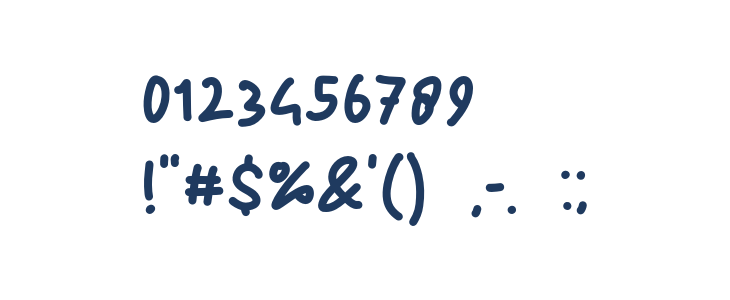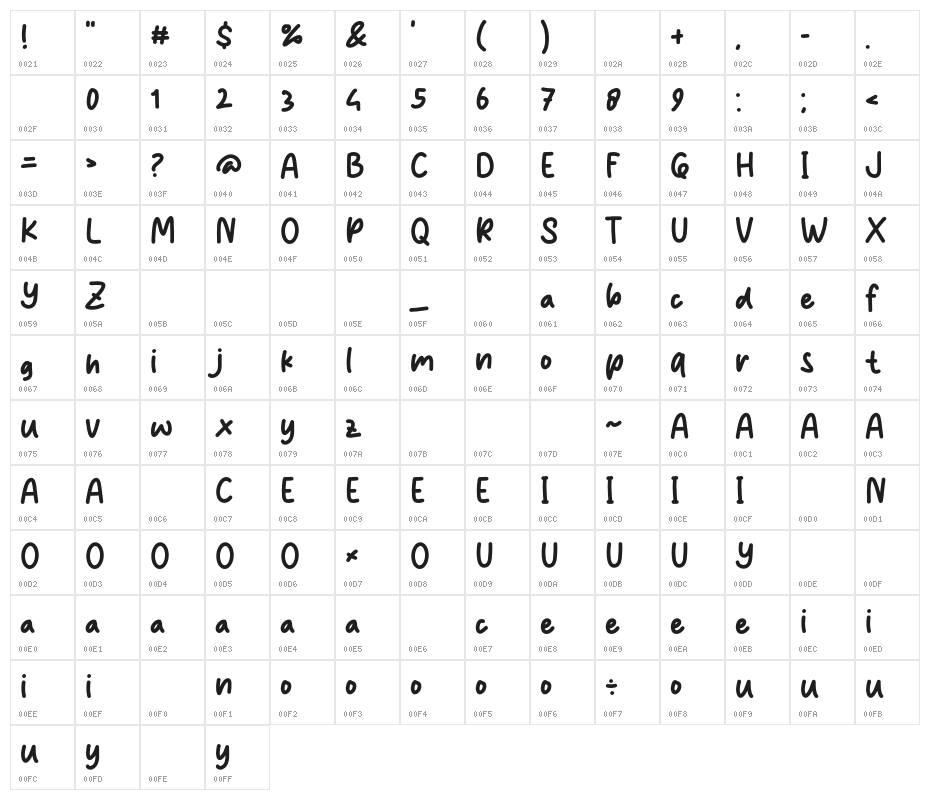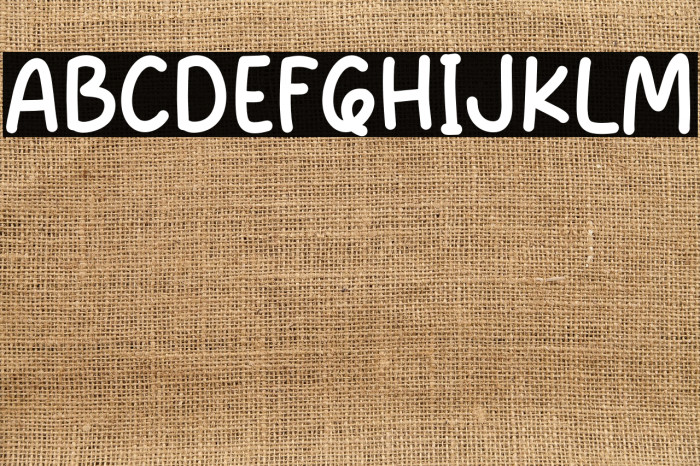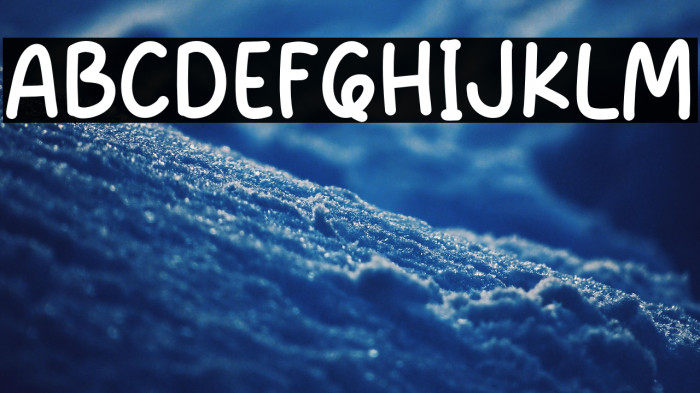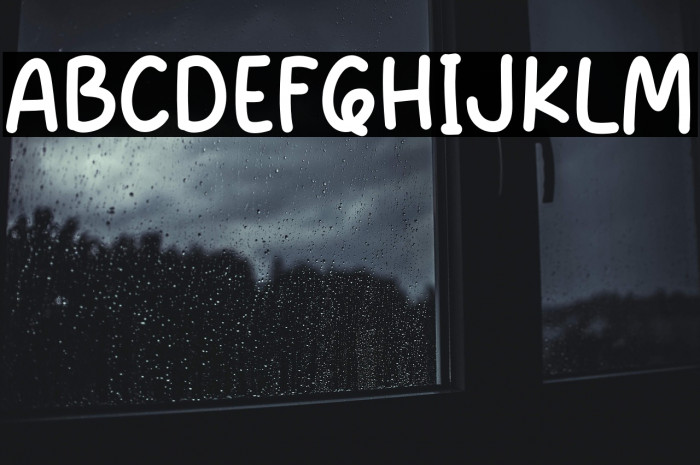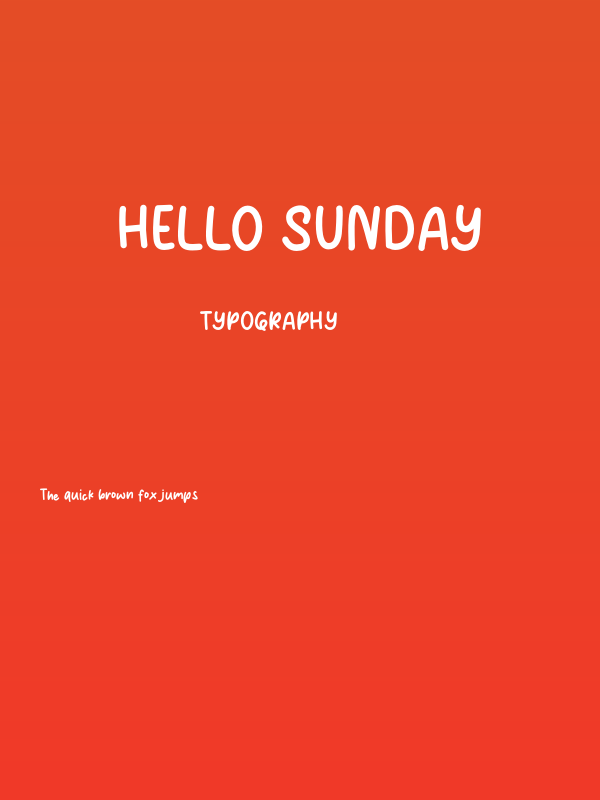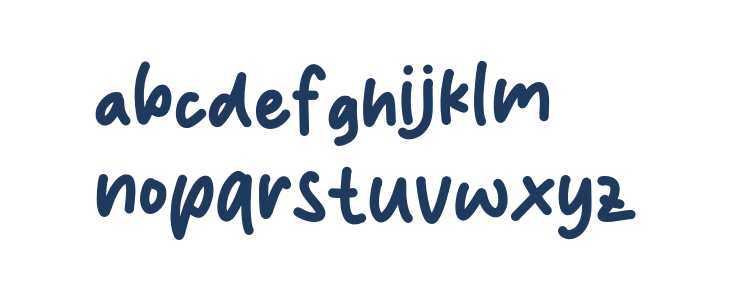
Hello Sunday Font
Hello Sunday Description
This font features a playful and casual handwritten style, characterized by its smooth, rounded edges and consistent stroke width. The letters are slightly irregular, adding a personal and friendly touch. The uppercase and lowercase letters maintain a cohesive look, with a slight slant that enhances its informal appearance. The numerals and special characters are designed to match the overall aesthetic, making it versatile for various uses. Its legibility is high, making it suitable for both digital and print media.
| Overall Style | Casual |
| Use Case | Headlines, Logos, Social media graphics |
| Proposed Projects | Ideal for greeting cards, children's books, casual branding, and social media graphics. |